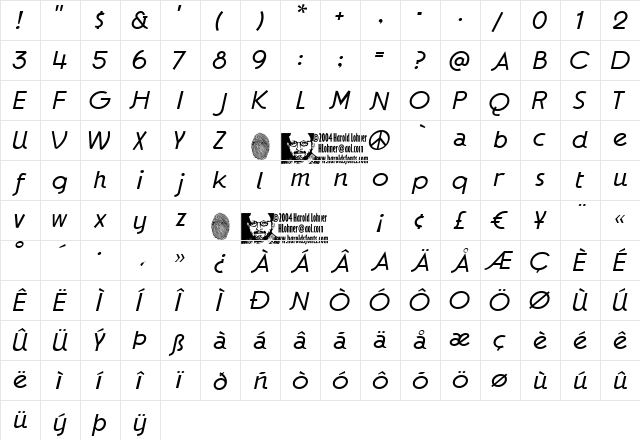
GaumontLight Italic Regular
Design Context for GaumontLight Italic Typeface
GaumontLight Italic is a composed and adaptable typeface that performs quietly and consistently across a wide range of design contexts. Its italic angle brings a sense of urgency and motion to the letterforms. The delicate stroke weight brings airiness and refinement to layouts.